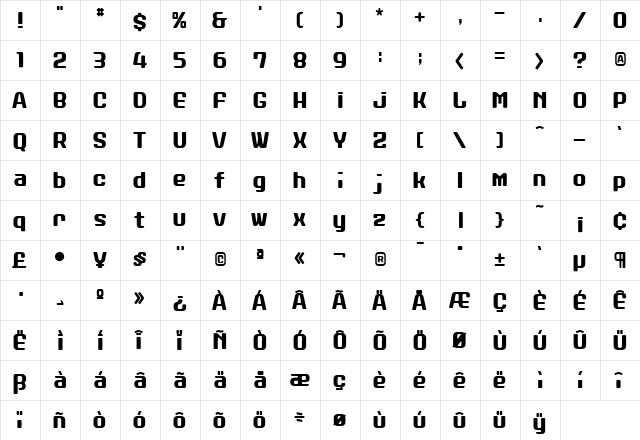
Stanley Regular Font Preview
Stanley Regular
Design Context for Stanley Typeface
Stanley is a composed and adaptable typeface that performs quietly and consistently across a wide range of design contexts.